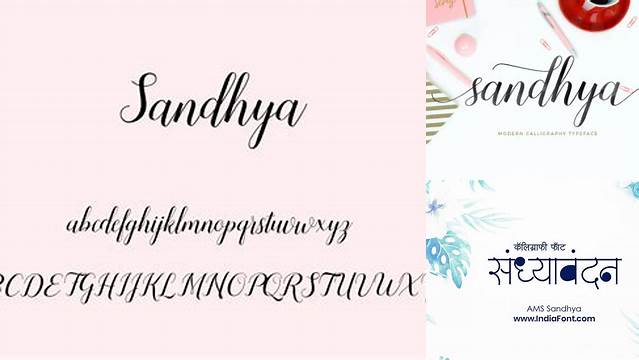
Hey there, design enthusiasts! Are you on the hunt for the perfect font to add a touch of elegance and flair to your projects? Well, look no further! Today, we're diving headfirst into the wonderful world of the Sandhya font – a beautiful typeface that's making waves in the design community. And the best part? You can get a Sandhya font free download! In this article, we'll explore everything you need to know about this fantastic font, from where to download it to how to use it effectively in your designs. Get ready to unleash your creativity!
What is the Sandhya Font? Unveiling Its Beauty
First things first, let's get acquainted with the star of the show: the Sandhya font. This isn't just any font; it's a carefully crafted piece of art. The Sandhya font is known for its elegant curves, flowing lines, and overall aesthetic appeal. It's a display font, meaning it's best suited for headlines, titles, and short bursts of text where you want to make a statement. It has a distinct personality that can instantly elevate the look and feel of your designs. When you look at the Sandhya font, you'll notice its unique letterforms, which give it a sophisticated and modern edge. It's a versatile font, capable of adapting to various design styles, from minimalist to elaborate.
The Sandhya font offers a range of styles, weights, and variations, allowing you to tailor its appearance to suit your specific needs. This versatility makes it a popular choice for graphic designers, web designers, and anyone who wants to add a touch of class to their work. If you're looking for a font that combines readability with artistic flair, the Sandhya font is definitely worth considering. Its flowing strokes and balanced design make it a pleasure to read, even in larger sizes. The font's inherent charm allows you to create visually stunning designs that captivate your audience. Furthermore, the availability of a Sandhya font free download makes it accessible to designers of all levels, enabling them to experiment with its unique characteristics without any financial constraints. It's perfect for branding, creating logos, designing posters, or adding a touch of elegance to your social media graphics. The Sandhya font is more than just a typeface; it's a statement, a style, and a means of expressing your creativity. If you're looking to enhance your designs, this font is an excellent choice, offering both aesthetic appeal and functional versatility.
The elegance of the Sandhya font shines through in its ability to adapt to diverse design contexts. Whether you're crafting invitations for a wedding, designing a logo for a boutique, or creating the headings for a website, the Sandhya font provides a touch of sophistication that captures the viewer's attention. Its clean lines and balanced proportions are suitable for both digital and print projects. Imagine using it for magazine covers, where its graceful letterforms draw the eye and create a sense of sophistication, or in advertisements, where it adds a touch of elegance to your brand's image. The Sandhya font can elevate the visual impact of your design, leaving a lasting impression on your audience. The wide range of available weights and styles gives designers the freedom to explore different looks, allowing for endless creative possibilities. Its adaptability is a key reason why the Sandhya font has become so popular among designers worldwide. The fact that it is available as a Sandhya font free download is an added advantage, making it a go-to choice for anyone who wants to create professional-looking designs without breaking the bank. The accessibility of this font empowers designers of all levels to enhance their projects and achieve outstanding results. Its beauty and functionality make it an invaluable asset in the world of design.
How to Use the Sandhya Font in Your Designs: Tips and Tricks
- Headlines and Titles: The Sandhya font is a star when it comes to headlines and titles. Its elegant style is perfect for grabbing attention and making a statement. Use it in large sizes to emphasize your key messages and create a strong visual impact. Think of it as the bold statement piece of your design. The Sandhya font truly shines in headlines, instantly drawing the viewer's attention and creating a sense of sophistication. Using it for titles will elevate your design and make it more memorable. Its distinctive letterforms and flowing lines allow you to craft visually stunning headings that are both readable and aesthetically pleasing. Consider using the Sandhya font in your next project to make your titles pop. When applied to headlines and titles, the Sandhya font exudes a captivating blend of modernity and elegance, setting the tone for your entire design. Its versatility allows it to be combined with other fonts to create a balanced composition. Try pairing it with a simpler, more understated font for body text to create a harmonious contrast. Your headlines will have a polished and professional look, showcasing the message in a clear and effective manner.
- Pairing with Other Fonts: Consider the Sandhya font to be a versatile and elegant font that adds a touch of sophistication to any design. But it’s not always meant to be the only font in your design. A good rule of thumb is to pair it with a simpler, more readable font for body text. This creates a balance between style and functionality. Think of the Sandhya font as the star and the other font as its reliable supporting character. The pairing of the Sandhya font with a well-chosen complementary font is critical to the overall success of a design. A harmonious combination will result in a design that is easy to read and visually pleasing. Always opt for a font that offers contrast and complements the unique qualities of the Sandhya font. Remember, the goal is to create a design that is both stylish and legible. Consider the message you want to convey and choose a font pairing that supports your goals. Combining the Sandhya font with a sans-serif font for body text, for example, can create a modern look. Pairing it with a serif font can create a more traditional feel. Experimenting with different font pairings is important to find the perfect match for your design. Ensure that the selected font is easily readable, and consider its style and weight for a perfect match with the Sandhya font. The right font pairing can transform your design and create a memorable impression on your audience.
Conclusion: Embrace the Elegance of the Sandhya Font